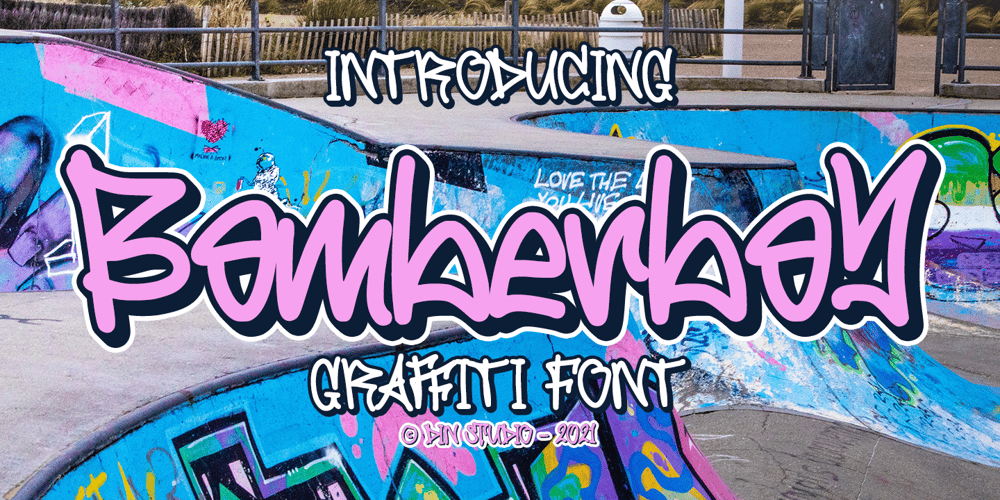
Bomberboy Font Family was designed by Donis Miftahudin and published by Din Studio. Bomberboy contains 2 styles and family package options. Hi, Everyone! Want a font to make your branding bold? Looking for a statement font that exudes prominence, style, and adventure? Then we’ve got the font for you!Introducing Bomberboy – A Grafiti FontBomberboy is offered in two versions: solid and shadow. Use this cool, colourful graffiti font to breathe a street life vibe into your projects. This font is perfect for logos, printed quotes, cards, packaging, website or social media branding, and many more! Our font always includes Multilingual Support to make your branding reach a global audience. Features: Alternates Standart Ligatures Multilingual Support PUA Encoded Numerals and Punctuation Thank you for downloading premium fonts from Din Studio